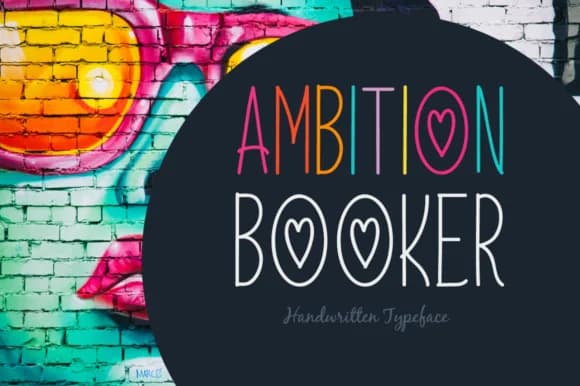
1 / 5About Ambition Booker Font
Ambition Booker by Shattered Notion is a handwritten script font that brings authentic character and personal flair to contemporary design projects. The typeface excels at creating memorable visual experiences across wedding invitation suites, personalized greeting card designs, indie brand packaging, and boutique product labels. Its flowing letterforms capture the warmth of genuine hand-lettering while maintaining sufficient legibility for both headline impact and readable body text applications. The font includes multiple weights and comprehensive language character support, making it adaptable across different design contexts and international projects.
Whether crafting custom event signage for boutique retail spaces, designing social media graphics with distinctive personality, or developing cohesive brand identity systems for emerging businesses, Ambition Booker delivers visual presence rooted in genuine handwritten charm. The handwritten aesthetic proves particularly effective in fashion design applications, lifestyle and wellness branding, artisan product packaging, and editorial projects where authenticity resonates with audiences. Designers value how the letterforms strike a balance between artistic expressiveness and polished professionalism, serving equally well in digital layouts and traditional print materials. The font's accessible handwritten style makes it welcoming rather than overly decorative, allowing it to work across diverse design needs.
Ambition Booker Font is a script font that shines as a display or heading face. Pair it with a clean sans-serif or serif font for body text β the contrast creates a clear hierarchy while the two styles stay balanced and easy to read.